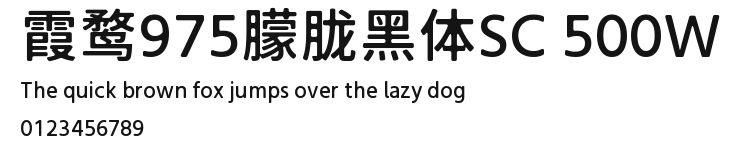
霞鹜975朦胧黑体SC 500W Preview
About 霞鹜975朦胧黑体SC 500W.ttf
霞鹜975朦胧黑体SC 500W.ttf is a modern, elegant sans-serif font designed for ultimate readability and visual harmony. Perfect for branding, headlines, web design, and print materials.